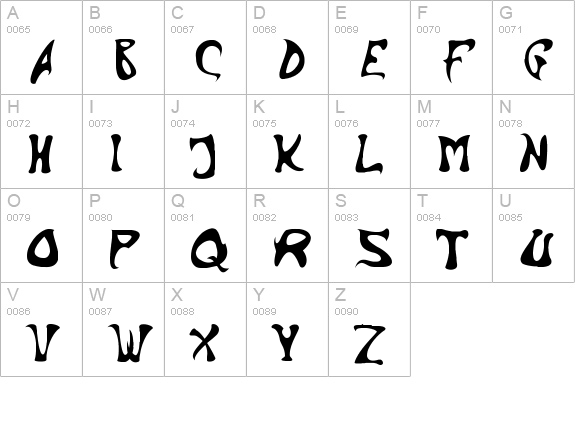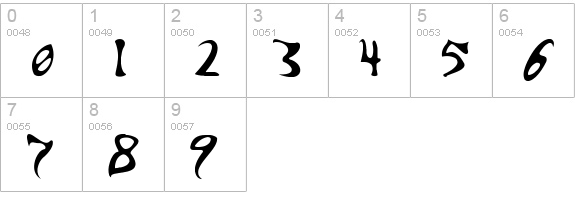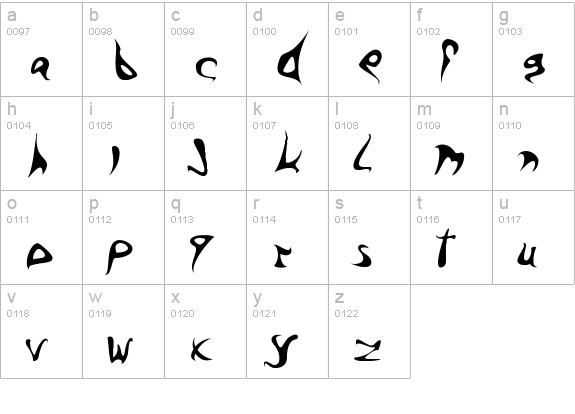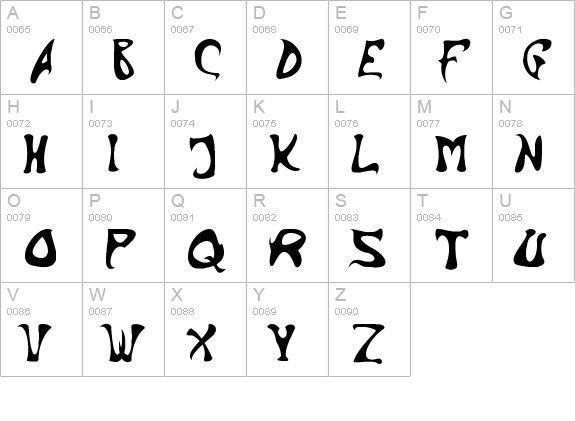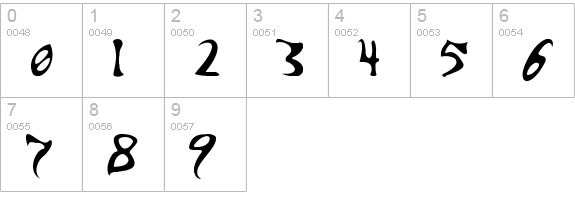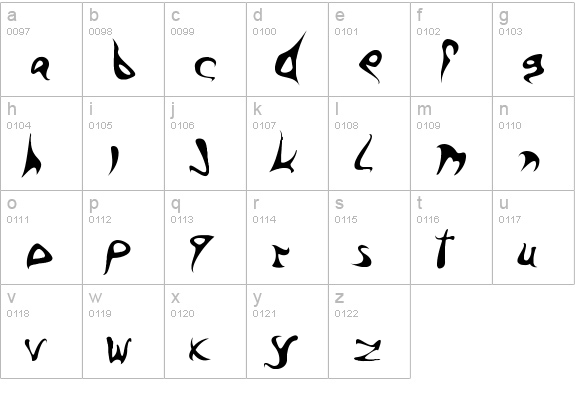
Barbed Ink Font Details
Barbed Ink font is a bold and edgy typeface that exudes a sense of rebelliousness and creativity. With its sharp, jagged lines and unique design, this font is perfect for making a statement in your designs. Whether you're working on a poster, logo, or website, Barbed Ink will add a touch of attitude and flair. What's even better is that Barbed Ink font is available for free download at FontsMarket.com. That's right, you can get your hands on this eye-catching font without spending a dime. So why wait? Add a touch of edginess to your projects with Barbed Ink font today!